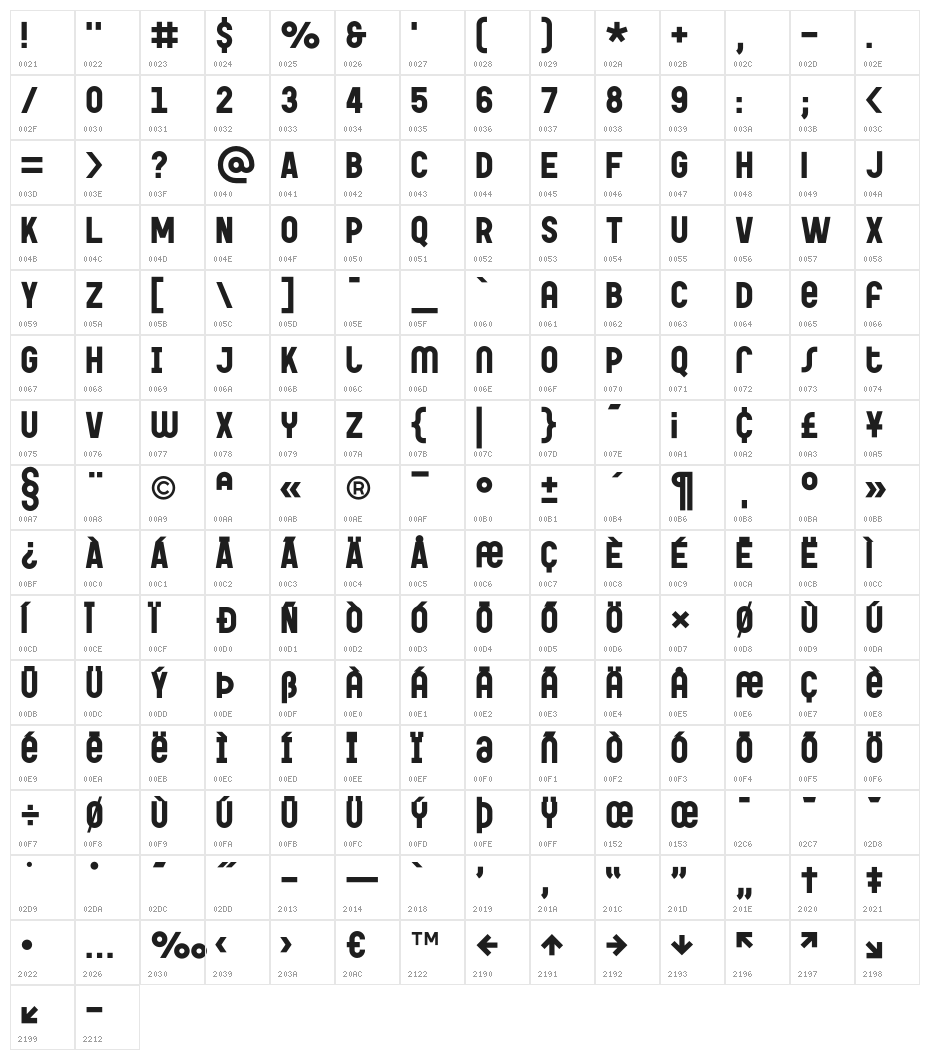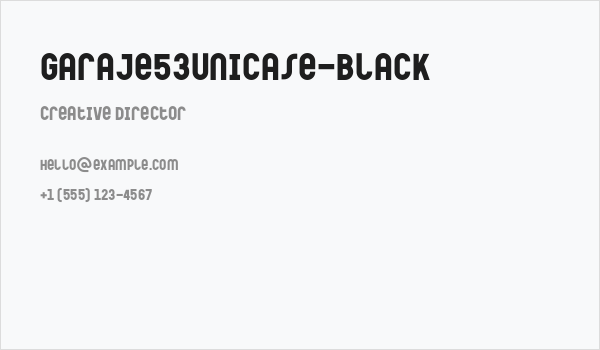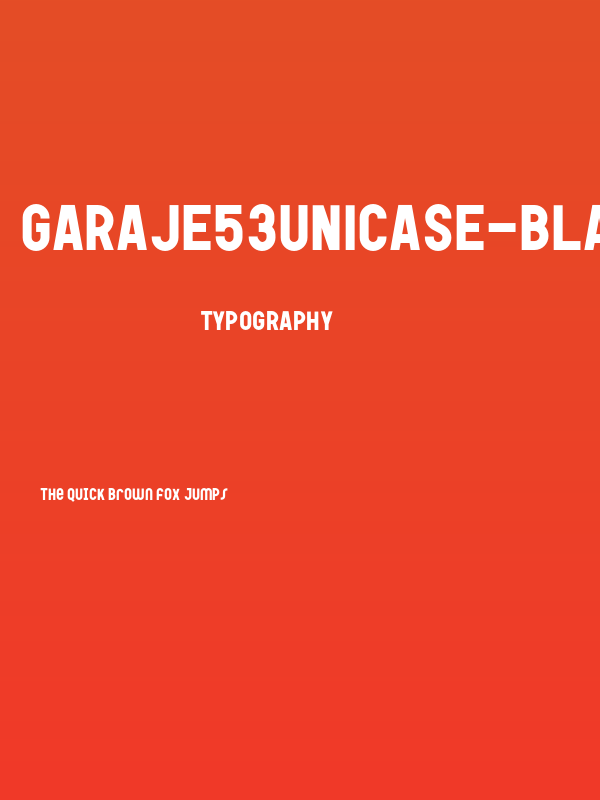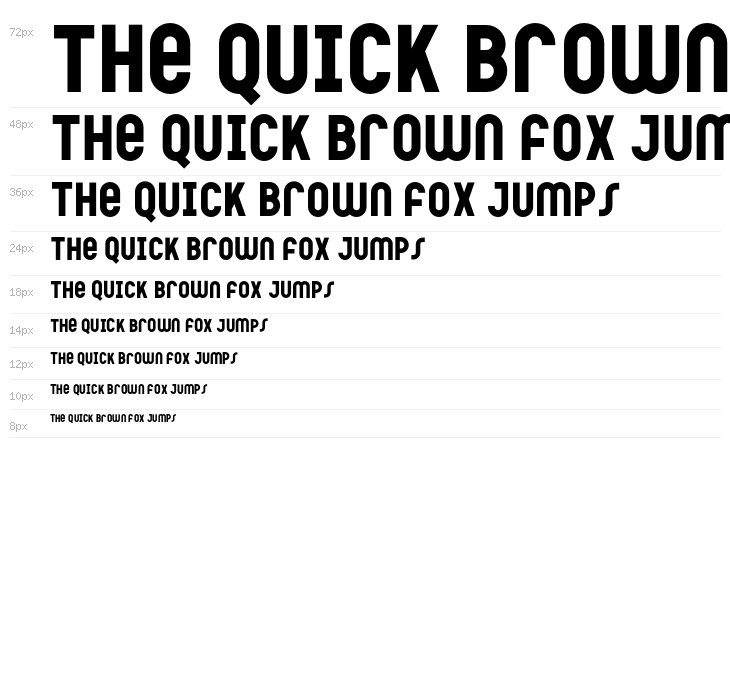
Garaje53Unicase-Black Font
Garaje53Unicase-Black Description
This font features a bold and robust design with a strong presence. The characters are uniformly thick, giving it a powerful and impactful look. The uppercase and lowercase letters share a similar height, creating a unicase style that is both modern and unique. The numerals are clear and easily distinguishable, while the special characters maintain the same boldness, ensuring consistency across all elements. The overall design is clean and straightforward, making it suitable for various applications where a strong visual impact is desired.
| Proposed Projects | Ideal for headlines, posters, branding, and any project requiring a bold statement. |